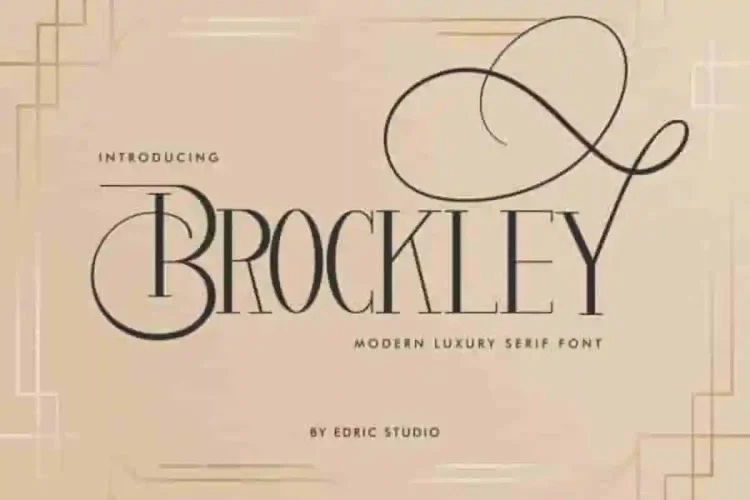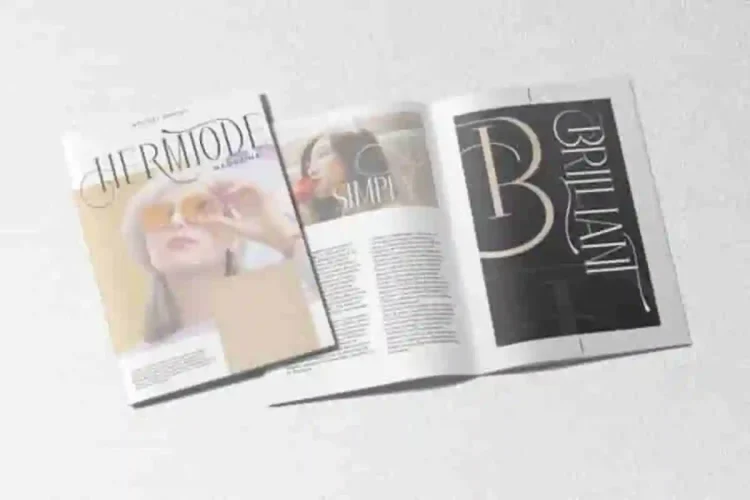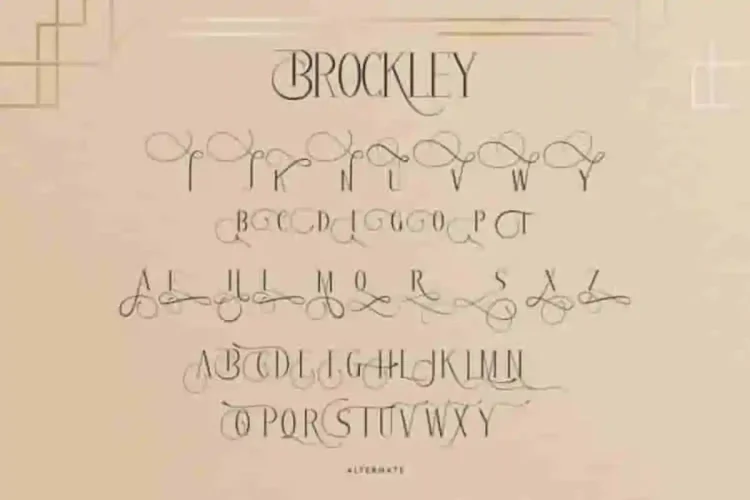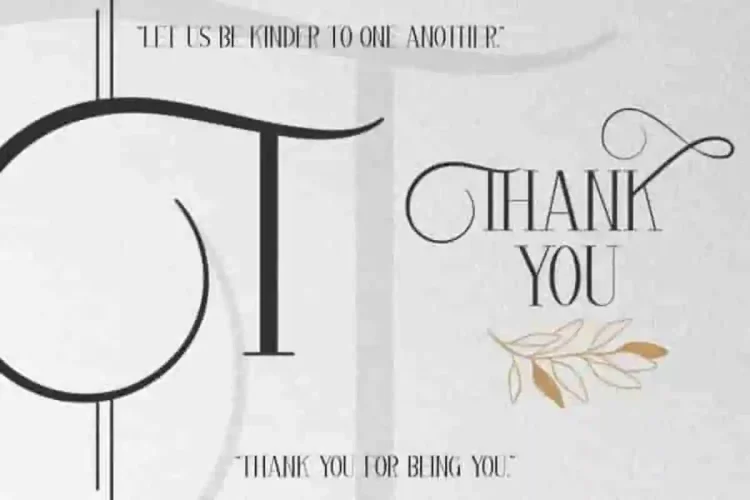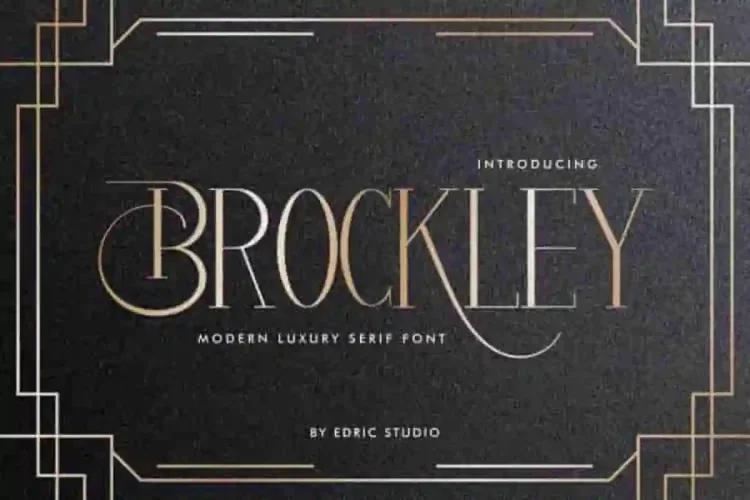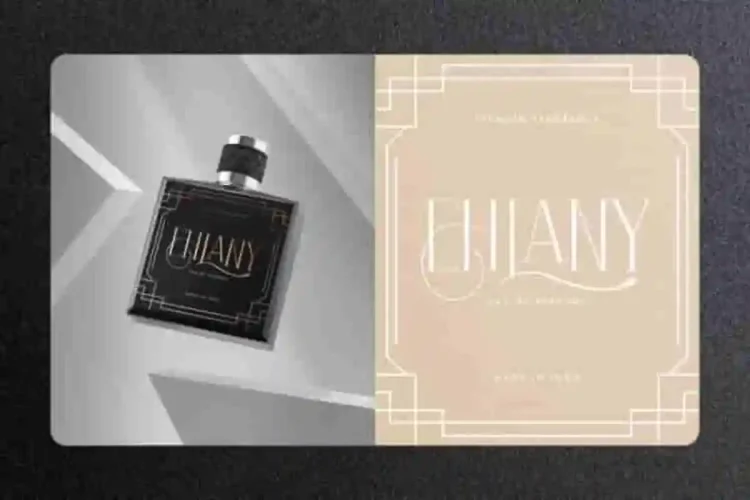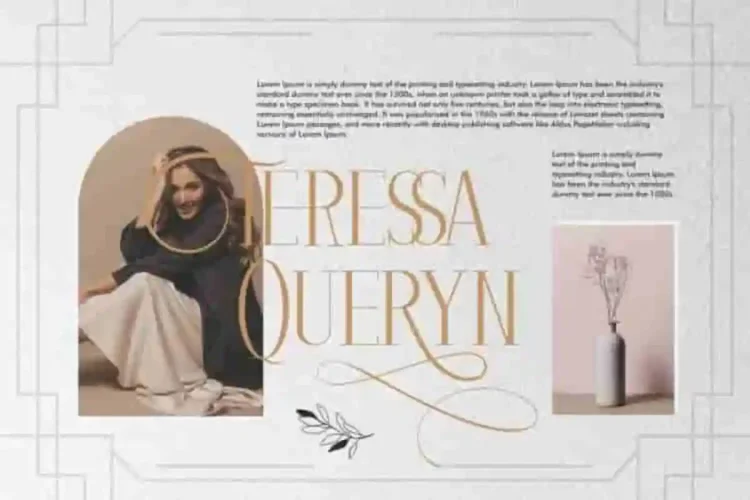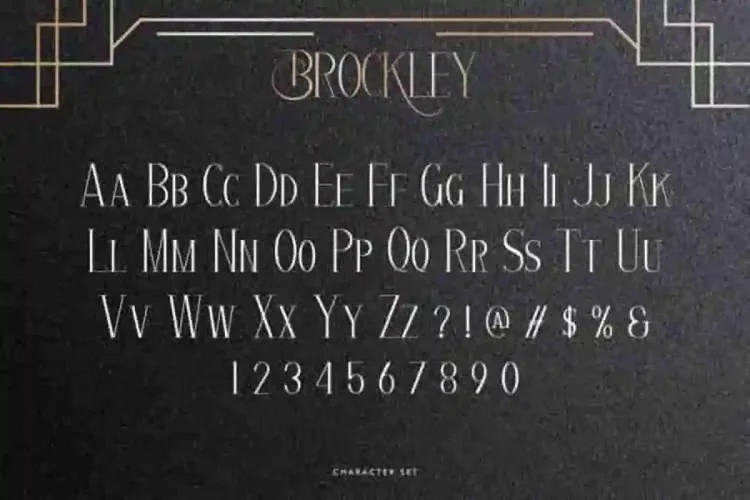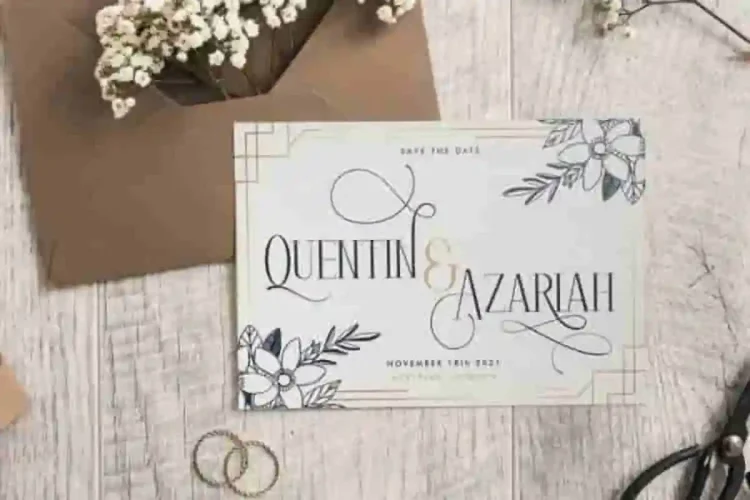
Brockley Luxury Sans Serif Font
Brockley Sans Serif Font is a stunning luxurious modern Sans Serif display font family with unique style. It has beautiful, fresh, elegant, natural and stylish glyphs. Brockley Luxury Font  will be perfect for branding, logo, photography and signature. Designed with luxurious styling, Brockley Font features fresh, clean, and stylish glyphs that blend modern simplicity with timeless beauty.